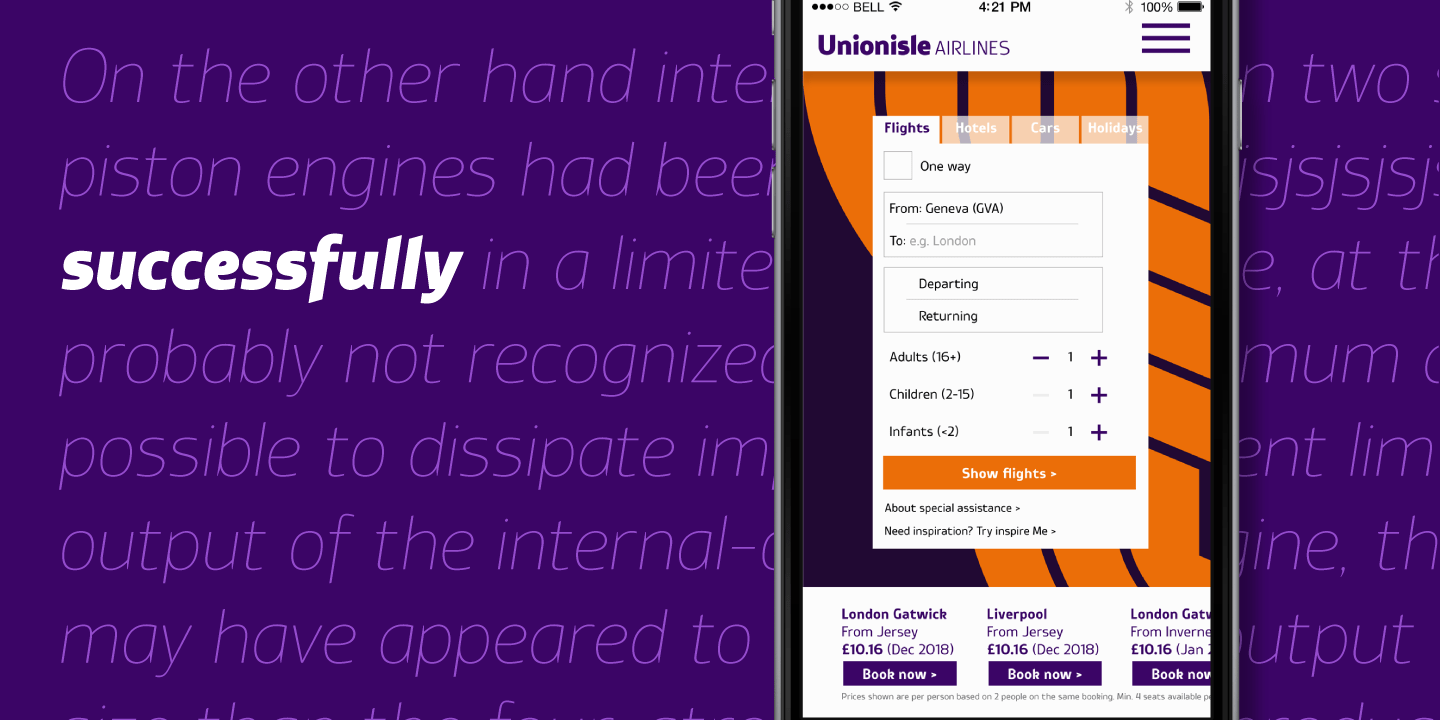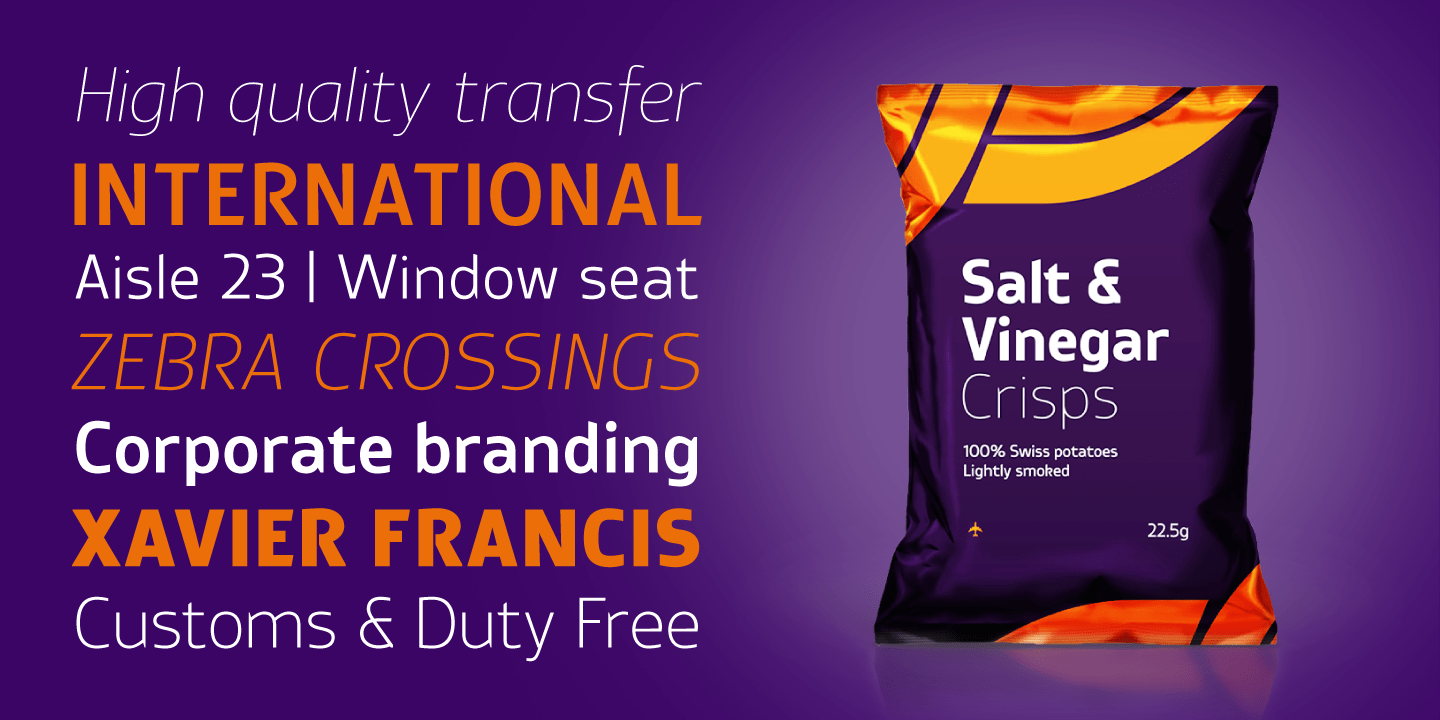
About Thrifty
Thrifty is a clean, contemporary typeface family created for branding and communication design. With a narrow form and clear letter forms, this family is both suited for display and title settings while equally remaining legible in smaller point sizes.…